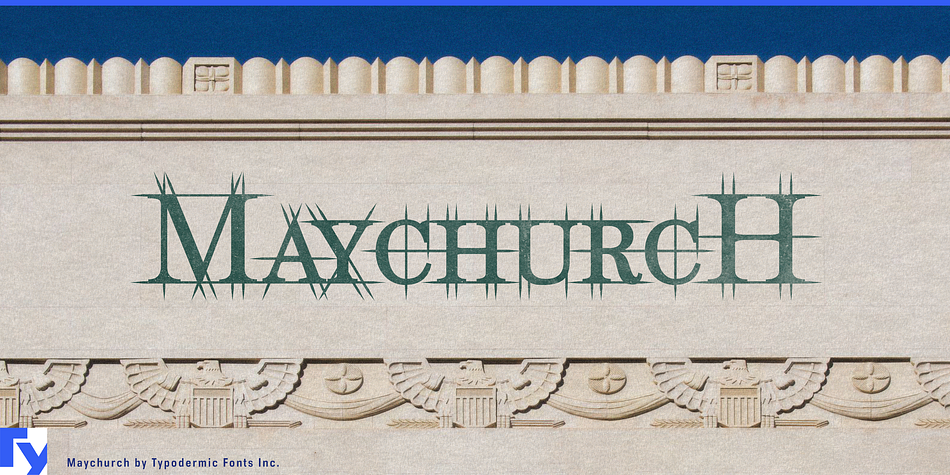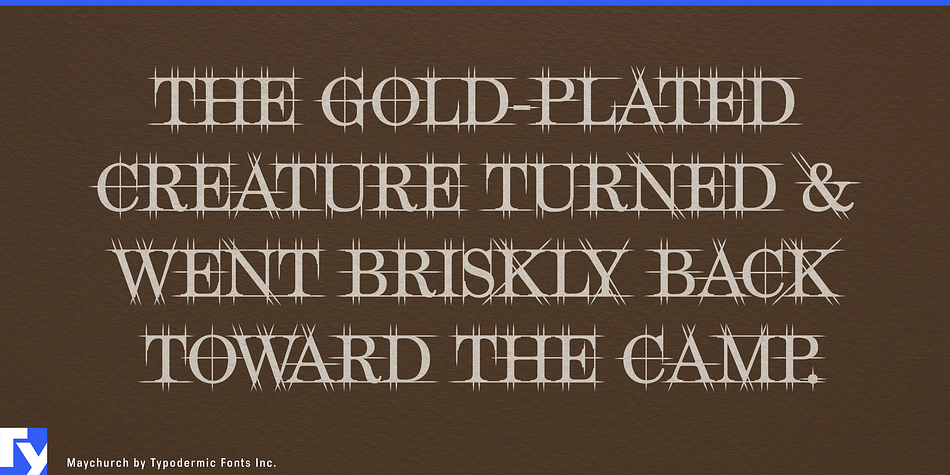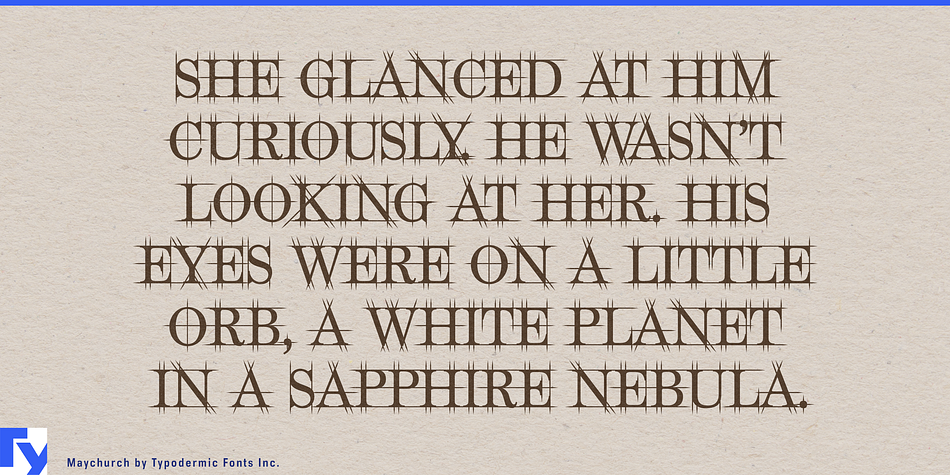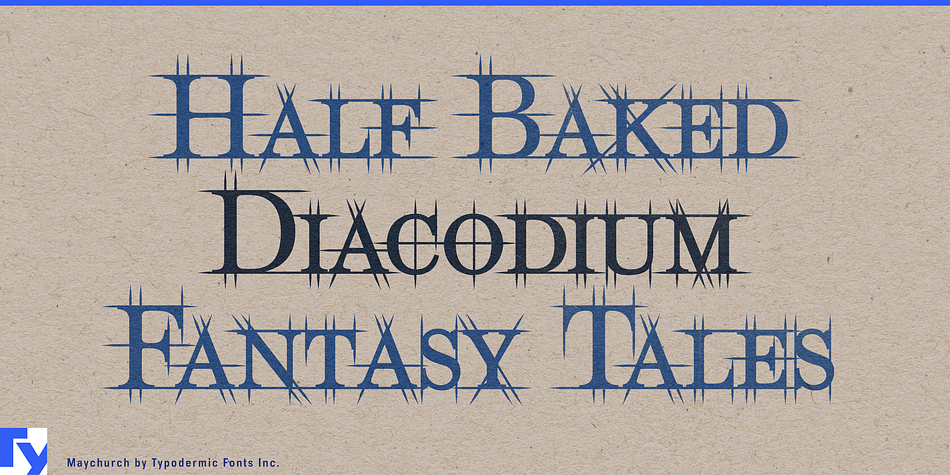
Maychurch is a novelty font published by Typodermic Fonts Inc.
Maychurch is a drafting technician themed font. It would be at home in Georgian, Neo-classical, Federalist or Victorian architectural themes. It conjures images of The White House and The British Museum.